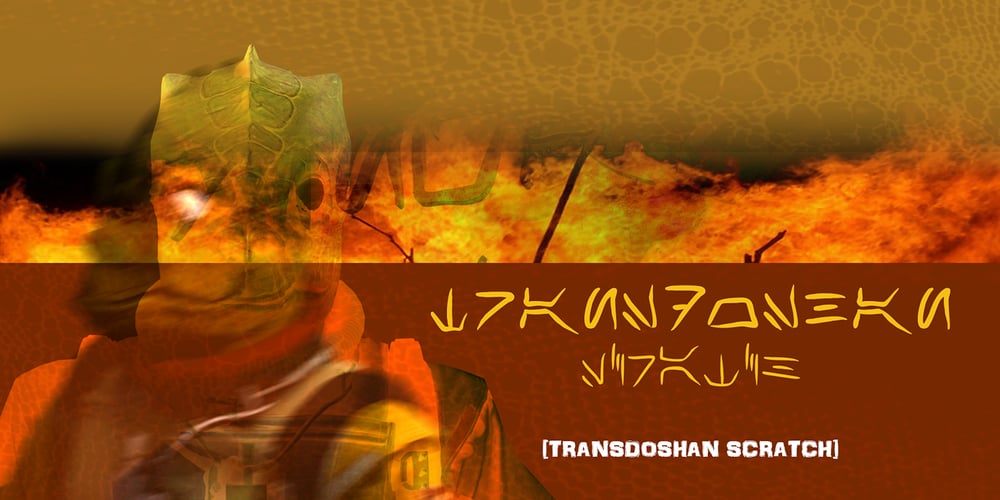
Transdoshan Scratch
Transdoshan Scratch font
Transdoshan Scratch Font Family was designed by Edward Schneider and published by Edd’s Aurebesh Fontworks. Transdoshan Scratch contains 1 styles and family package options. Working on a Star Wars project? This font is in Aurebesh, the main written language of the Star Wars universe. In this case I designed a font that looks like it has been scratched into a wall. All the additional letters from the Aurebesh character set are includes, as well as numbers and symbols.